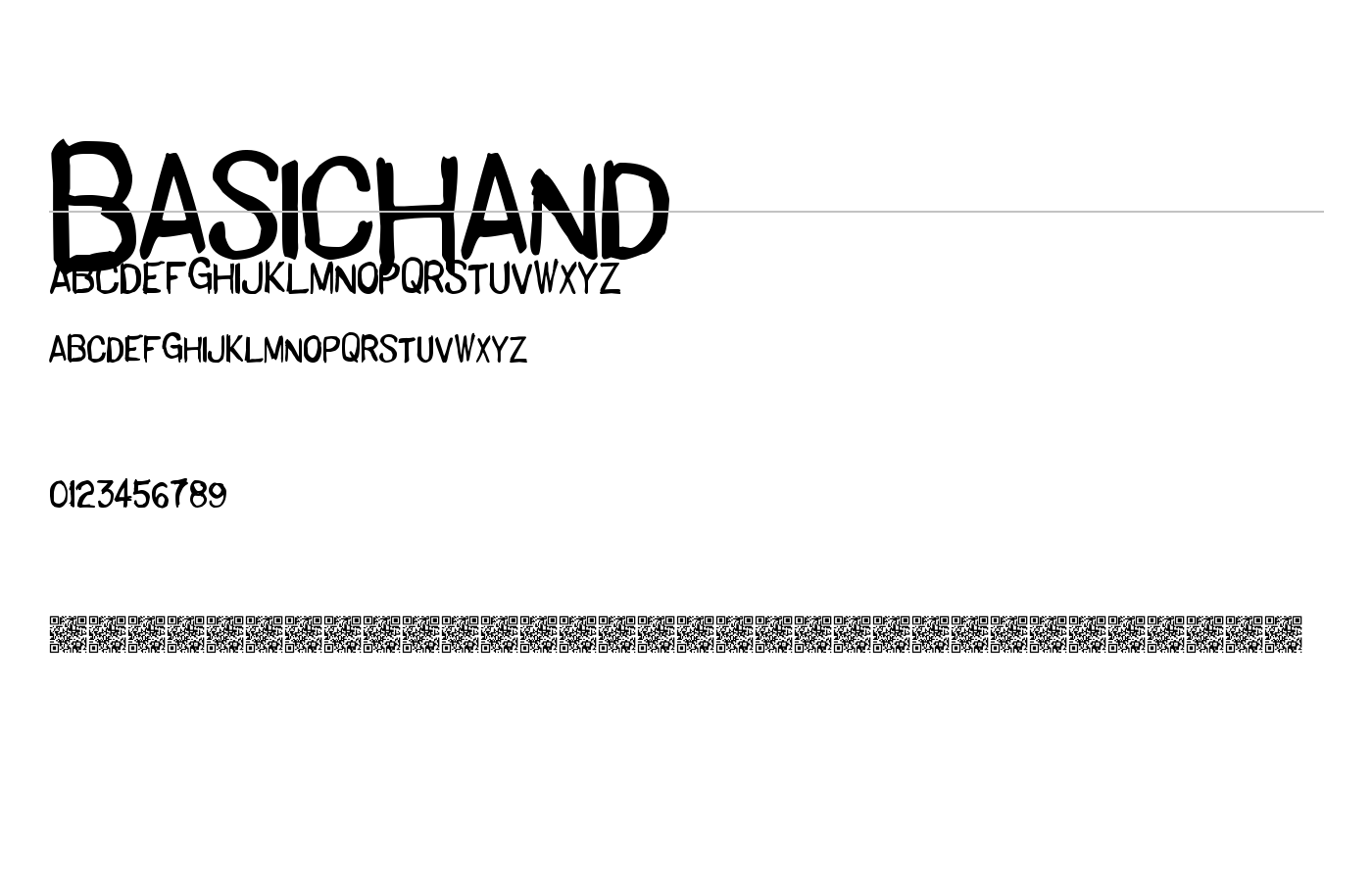
BasicHand Font is a playful and casual handwritten sans serif typeface with an uneven, organic feel that mimics natural pen strokes. Its irregular shapes and moderate contrast give it a friendly, informal personality ideal for creative projects, children's designs, and personal branding. This font works best in headlines, logos, and posters where a warm, approachable tone is desired.
BasicHand Font
About BasicHand Font